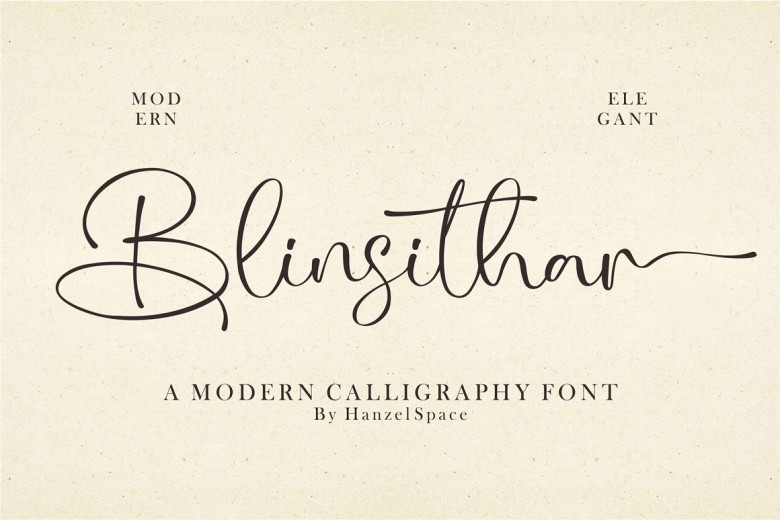
Blinsithar Font
Introducing our font Blinsithar font We are very happy that this font was finally released in 2023, and full of new concepts For every character in the font Is this what you expected? It has beautiful curves enhancing the appearance of the font but is still very attractive. Includes lower and upper case letters, punctuation, swash and ligature.
Blinsithar Calligraphy Script Font